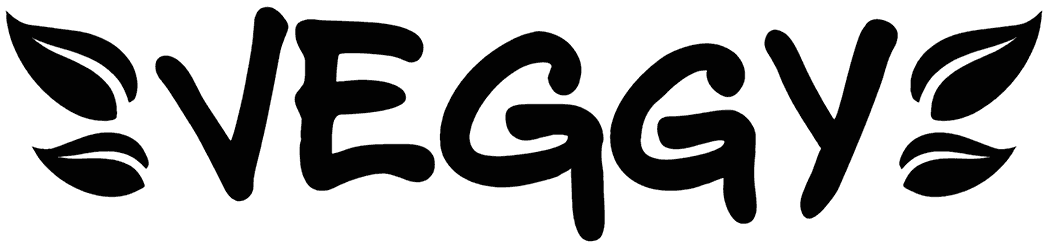
Veggy Font
What can be funnier than a design with cute and playful words? As an organic font, Veggy with a cartoon face and whimsy vibe is an incredible promotion for your designs, namely game webs, cartoons, planners, posters, or the like.